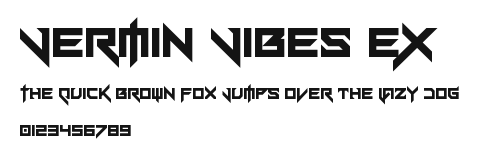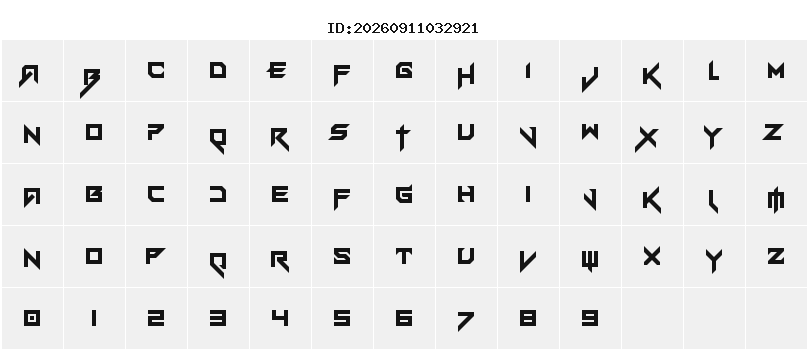
• Font Name: Vermin Vibes eX
• Full Font Name: Vermin Vibes eX Regular
• Designer: Andrew McCluskey
• Description: ‚ÄúVermin Vibes eX‚Äù was built with FontStruct ‚ÄúVermin Vibes eX‚Äù is based on ‚ÄúVermin Vibes‚Äù by ‚ÄúAndrew McCluskey‚Äù (http://fontstruct.com/fontstructors/nal)
About Vermin Vibes eX.ttf
Vermin Vibes eX.ttf is a modern, elegant sans-serif font designed for ultimate readability and visual harmony. Perfect for branding, headlines, web design, and print materials.